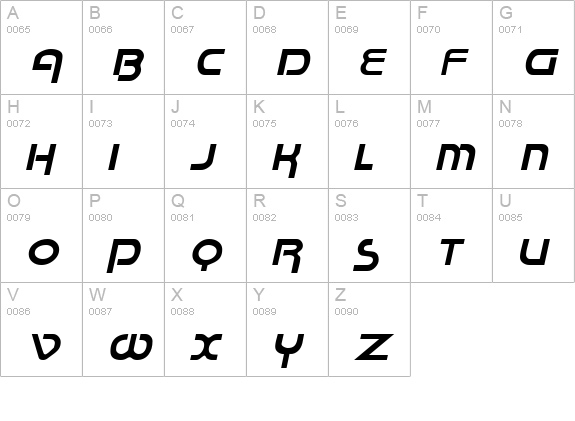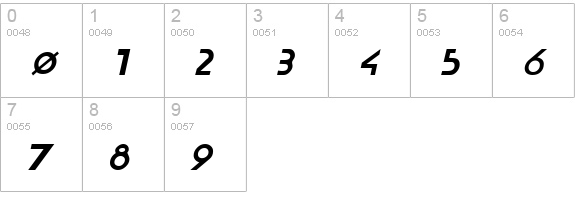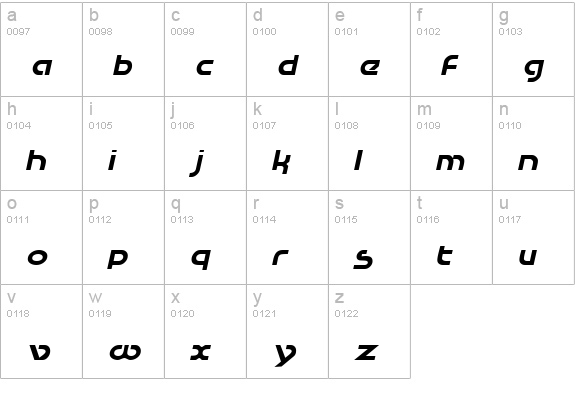
RaceTracSSK Italic Font Details
RaceTracSSK Italic is a distinctive, italic variant in the RaceTracSSK typeface family \xE2\x80\x94 well suited to design and typography projects.
RaceTracSSK Italic is a captivating and stylish font that exudes sophistication and elegance. Its slanted and italicized design adds a touch of uniqueness to any text, making it perfect for adding flair to your projects. With its sleek and modern appearance, RaceTracSSK Italic is sure to grab attention and leave a lasting impression. This font is ideal for a wide range of uses, including logos, headlines, invitations, branding, and more. Its versatility allows it to effortlessly adapt to various design styles, whether you're going for a professional and polished look or a more artistic and edgy vibe. One of the most appealing aspects of RaceTracSSK Italic is that it is freely available to download at FontsMarket.com. This means that you can easily access this stunning font without any hassle or cost. By offering it for free, FontsMarket.com allows designers and creatives to enhance their projects without breaking the bank. RaceTracSSK Italic is designed with precision and attention to detail, ensuring that every character is aesthetically pleasing and harmoniously balanced. The smooth and fluid curves of each letter create a visually pleasing flow, adding a touch of elegance and sophistication to your designs. Whether you're working on a personal project or a professional endeavor, RaceTracSSK Italic is the perfect font choice. Its stylish and captivating appearance, combined with its freely accessible nature, makes it a must-have for any designer or creative individual. So don't miss out on the opportunity to elevate your designs with this remarkable font, available for free at FontsMarket.com.